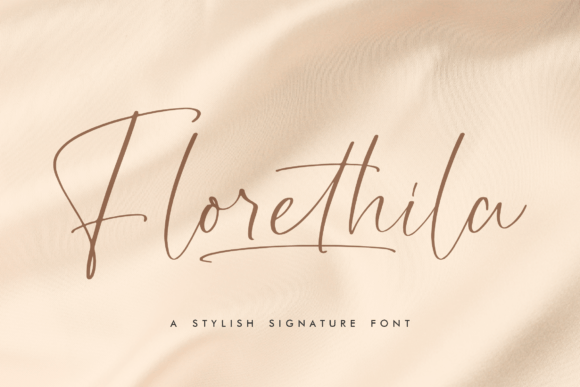
Journey into the realm of elegance and sophistication with Florethila — a script font that exudes timeless charm and modern flair. Each letter dances across the page like a delicate brushstroke, leaving a trail of beauty and intrigue.
Embrace the allure of Florethila's captivating curves and flourishes, designed to evoke a sense of luxury and exclusivity. Whether you're crafting an elegant logo, designing a captivating book or movie title, or creating a high-end fashion brand, Florethila is your perfect companion.
Unleash your creativity and let Florethila elevate your designs to new heights. Its versatility knows no bounds, from enchanting wedding invitations and captivating social media posts to eye-catching posters and mesmerizing website text. Transform your words into works of art and leave a lasting impression on your audience.
With Florethila, you'll discover a font that captures the essence of grace and refinement. Its meticulously crafted characters embody a timeless aesthetic that will add a touch of sophistication to any project. Experience the magic of Florethila and elevate your designs to the realm of the extraordinary.